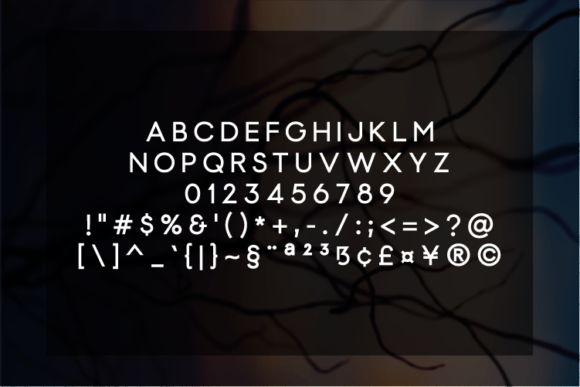
Discover the Power of Gabriely Extra Bold Font: Elevate Your Designs with a Modern Sans Serif Typeface
In the world of typography, a good font can make all the difference in the success of a design project. For designers and crafters looking for a clean, modern sans serif typeface that exudes simplicity and timelessness, look no further than Gabriely Extra Bold Font. In this article, we’ll explore the features and benefits of Gabriely, and why it’s an essential font to have in your design arsenal.
What is Gabriely Extra Bold Font?
Gabriely is a meticulously designed sans serif typeface that boasts a clean and modern aesthetic. With its sleek lines and attention to detail, Gabriely is the perfect font for designers seeking a sophisticated and minimalist look. Whether you’re working on a branding project, website design, or crafting a marketing campaign, Gabriely Extra Bold Font is an excellent choice.
Key Features of Gabriely Extra Bold Font
- Clean and Modern Design: Gabriely’s sans serif design ensures a crisp and contemporary look that’s perfect for modern designs.
- Attention to Detail: The font has been passionately designed with great attention to detail, ensuring a high level of legibility and readability.
- Simplistic and Timeless Look: Gabriely’s simple yet elegant design makes it an excellent choice for projects that require a timeless look.
- Versatility: Gabriely Extra Bold Font is suitable for a wide range of design projects, from branding and advertising to web design and crafting.
Benefits of Using Gabriely Extra Bold Font
So, why choose Gabriely Extra Bold Font for your design projects? Here are just a few benefits of using this exceptional font:
- Enhance Readability: Gabriely’s clean design and attention to detail ensure that your text is easy to read, even at small font sizes.
- Professional Look: The font’s modern and sophisticated aesthetic lends a professional touch to any design project.
- Flexibility: Gabriely Extra Bold Font can be used for both digital and print projects, making it a versatile addition to your font library.
- Unique Identity: With Gabriely, you can create a unique visual identity for your brand or project that sets it apart from the competition.
How to Use Gabriely Extra Bold Font in Your Designs
Using Gabriely Extra Bold Font in your designs is easy. Here are a few tips to get you started:
- Pair with Other Fonts: Combine Gabriely with other fonts to create a unique and visually appealing typography scheme.
- Experiment with Sizes and Colors: Play with different font sizes and colors to add depth and interest to your design.
- Use for Headings and Titles: Gabriely Extra Bold Font is perfect for headings and titles, where its bold and modern design can make a statement.
In conclusion, Gabriely Extra Bold Font is an exceptional sans serif typeface that offers a clean, modern, and timeless look. With its attention to detail, versatility, and professional aesthetic, Gabriely is an essential font for designers and crafters looking to elevate their design projects. Whether you’re working on a branding campaign, website design, or crafting a marketing project, Gabriely Extra Bold Font is an excellent choice. Add it to your font library today and discover the power of great typography!